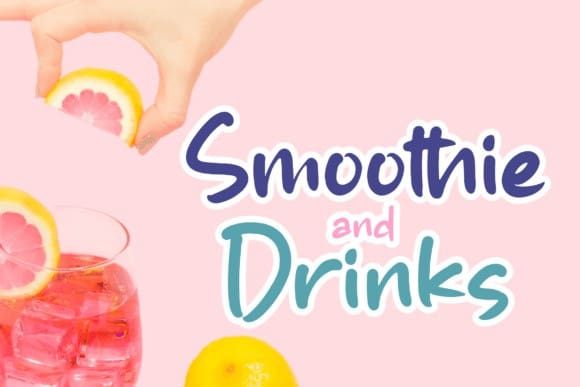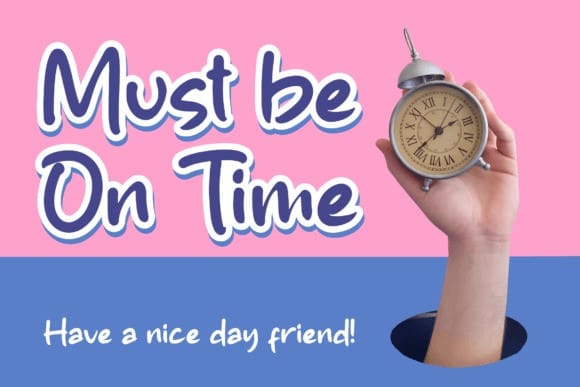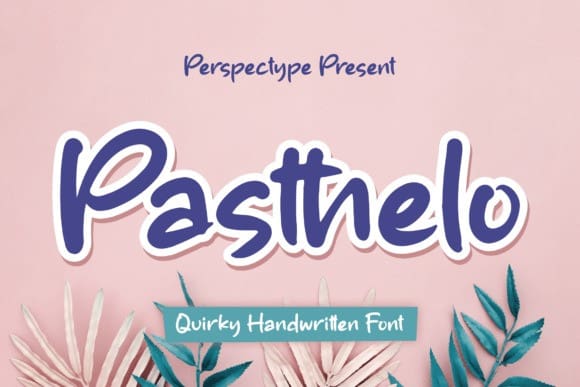
Pasthelo Quirky Font
Pasthelo Quirky Handwritten Font suitable for any projects such as logos, branding projects, homeware designs, product packaging, mugs, quotes, posters, shopping bags, t-shirts, book covers, name cards, invitation cards, greeting cards, labels, photography, watermark, special events, and all your other lovely projects that need a beautiful script taste.